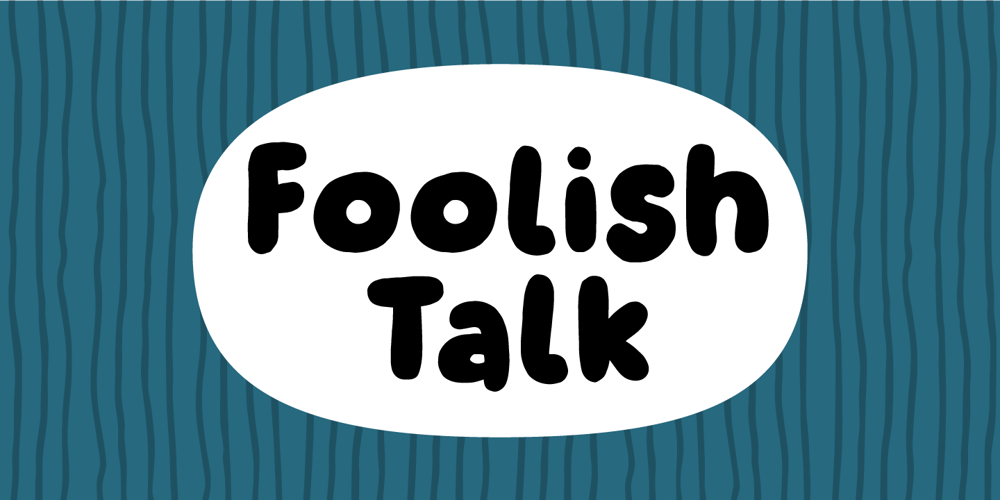
Foolish Talk Font Family was designed by Jakob Fischer and published by Bogstav. Foolish Talk contains 2 styles and family package options. Foolish Talk is a roundish, tasty and delicious font. Kinda like something from the bakery, but without the calories! It has a comical look to it, but it could easily be used for organic products or even your next skateboard event poster!